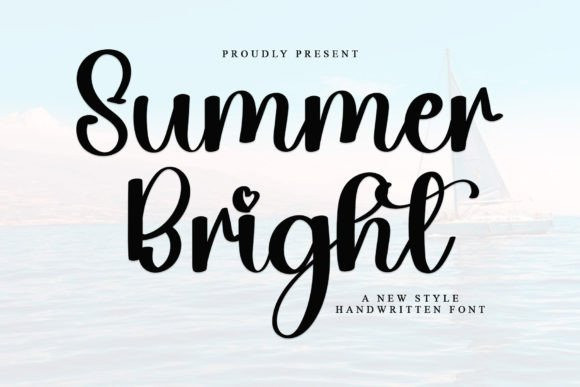
Summer Bright Font is a stylish and very elegant writing font. With a modern and minimalist style, it will look like a beautiful life. This font Looks amazing on wedding invitations, thank you cards, quotes, greeting cards, logos, business cards and any other design that requires a handwritten touch.